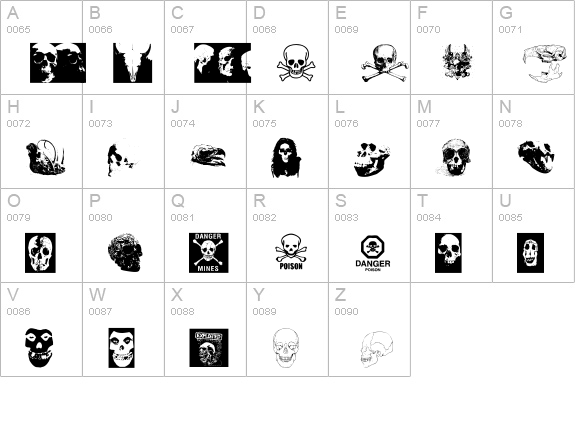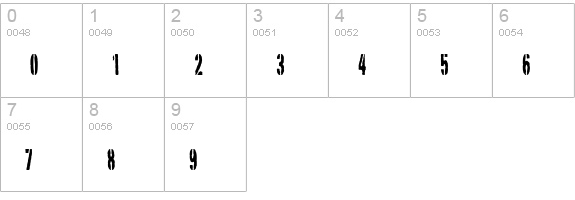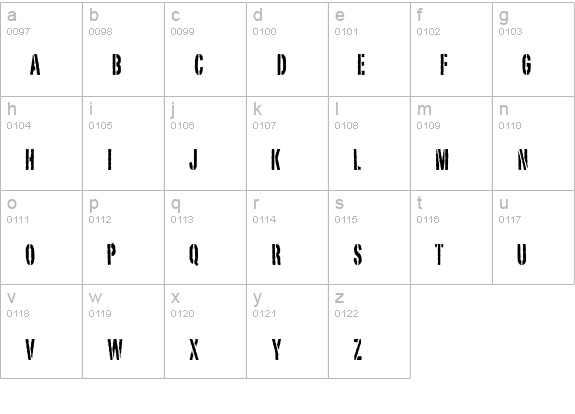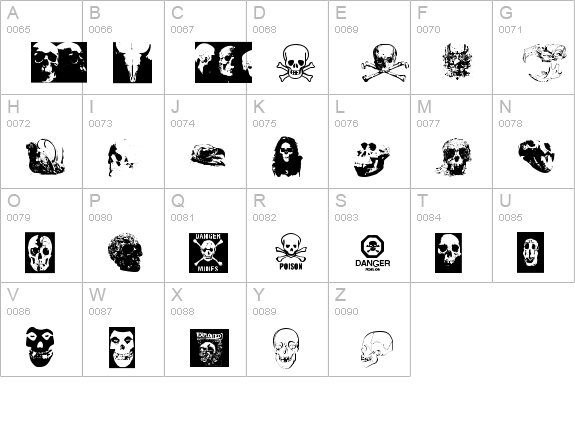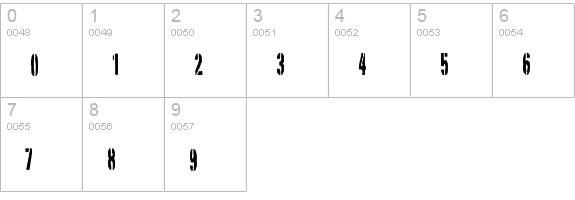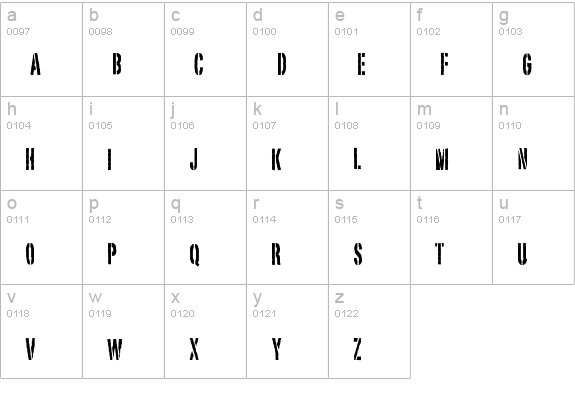
Introducing SKULL TS 2 font, a mesmerizing display of edgy elegance that is sure to captivate and enthrall. This font effortlessly combines the raw intensity of skull motifs with a sleek and sophisticated design, resulting in a strikingly unique typeface that commands attention. Designed with meticulous attention to detail, SKULL TS 2 font exudes a sense of dark allure, making it the perfect choice for projects that require an element of mystery and intrigue. Its intricate lines and intricate details add depth and texture to any design, making it a versatile font that can be used for a wide range of creative purposes. What makes SKULL TS 2 font even more enticing is the fact that it is absolutely free to download at FontsMarket.com. This means that you can easily obtain this remarkable font and incorporate it into your designs without any cost or hassle. Whether you are a seasoned designer looking to add a unique touch to your latest project or a beginner exploring the world of typography, SKULL TS 2 font offers unlimited creative possibilities at no cost. With its captivating aesthetic and freely available nature, SKULL TS 2 font is a must-have for any designer, artist, or creative individual seeking to make a bold statement. Download it today from FontsMarket.com and unlock the potential to create stunning visuals that leave a lasting impression.